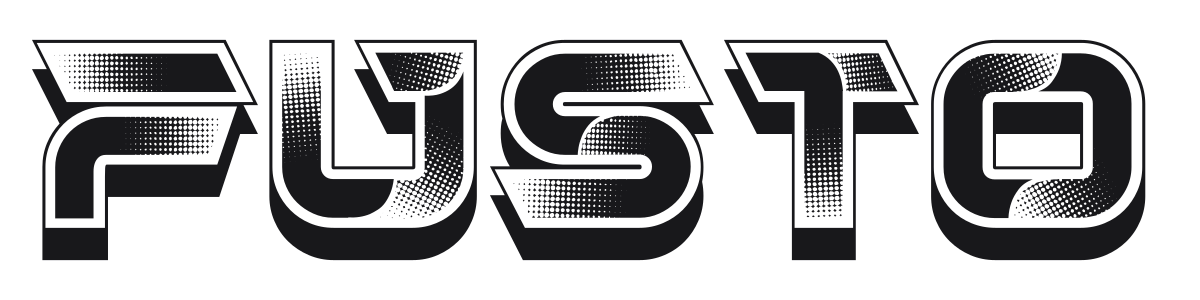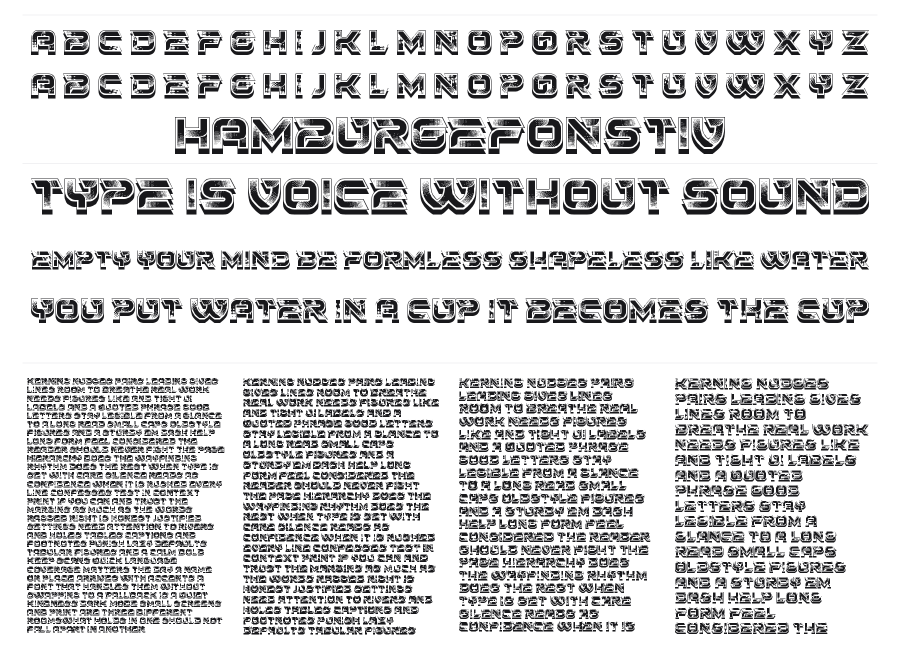
Fusto
Fusto is a bold retro-futuristic display font with a dramatic chrome-style inline treatment built from layered horizontal lines that simulate a metallic sheen. The wide, chunky construction with softened corners channels 1980s action movie energy. It hits hard at large sizes on posters, game titles, and event branding.